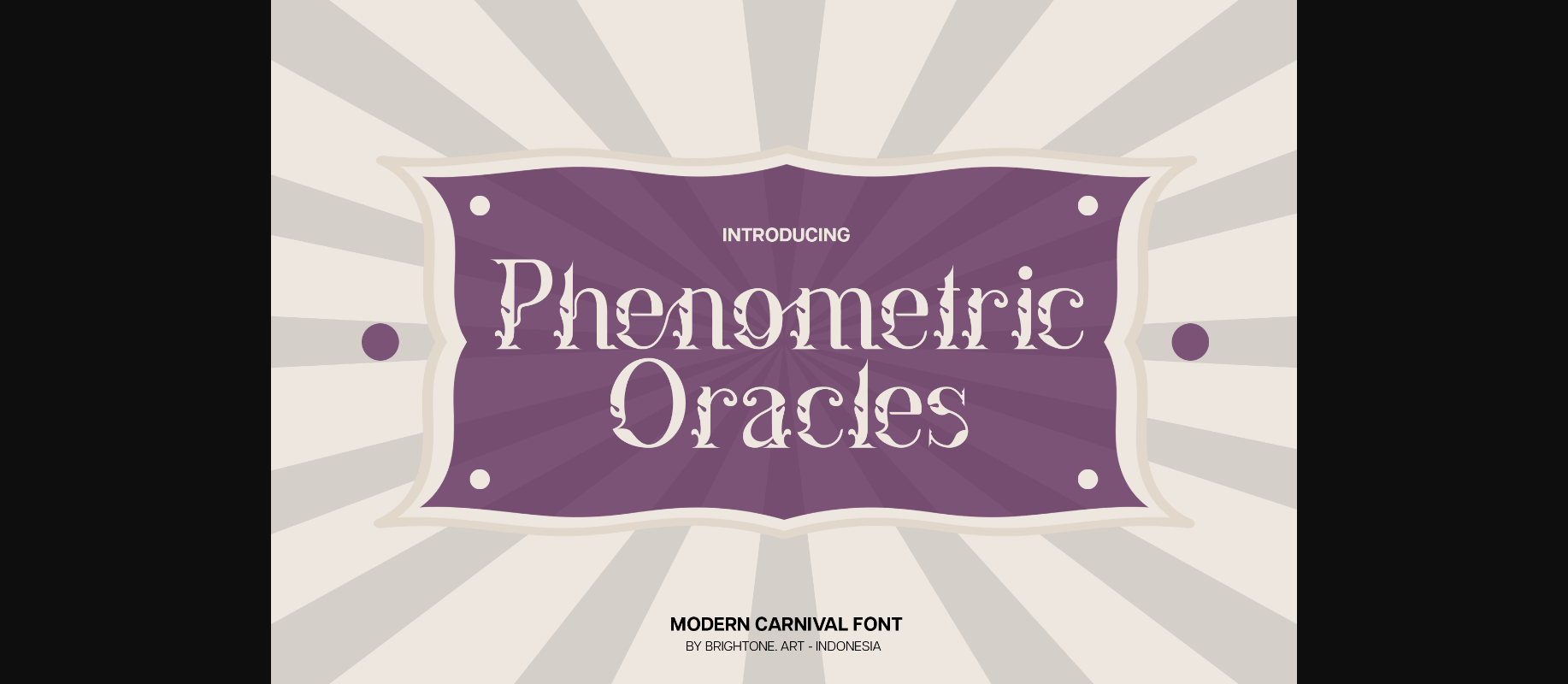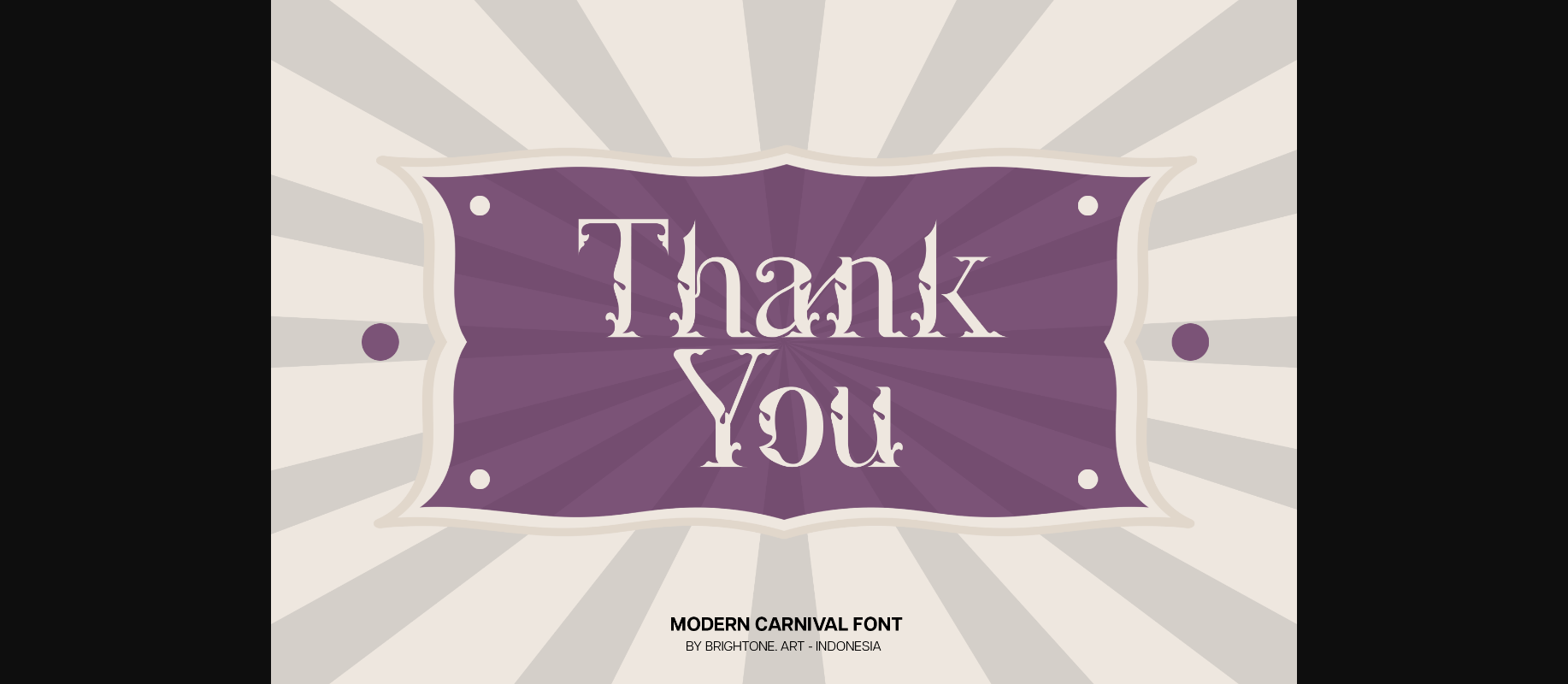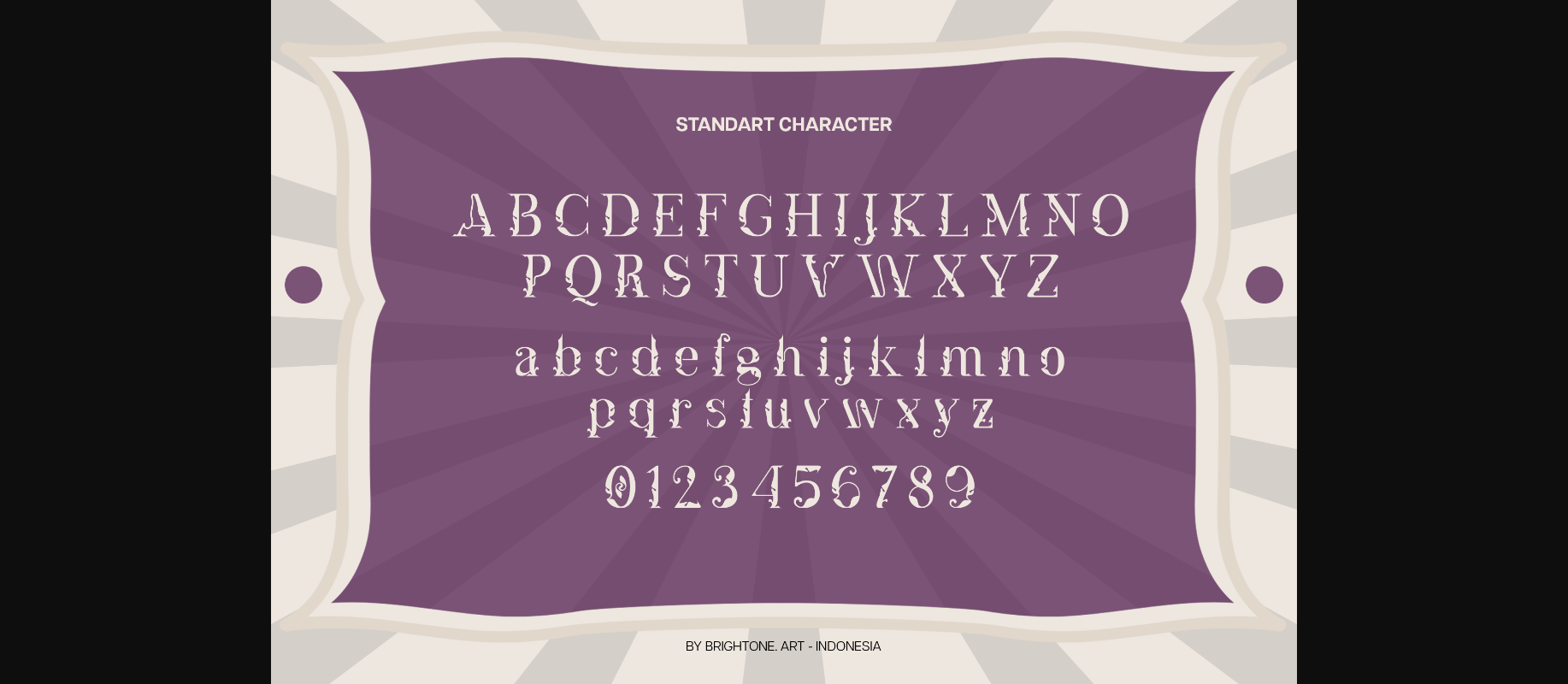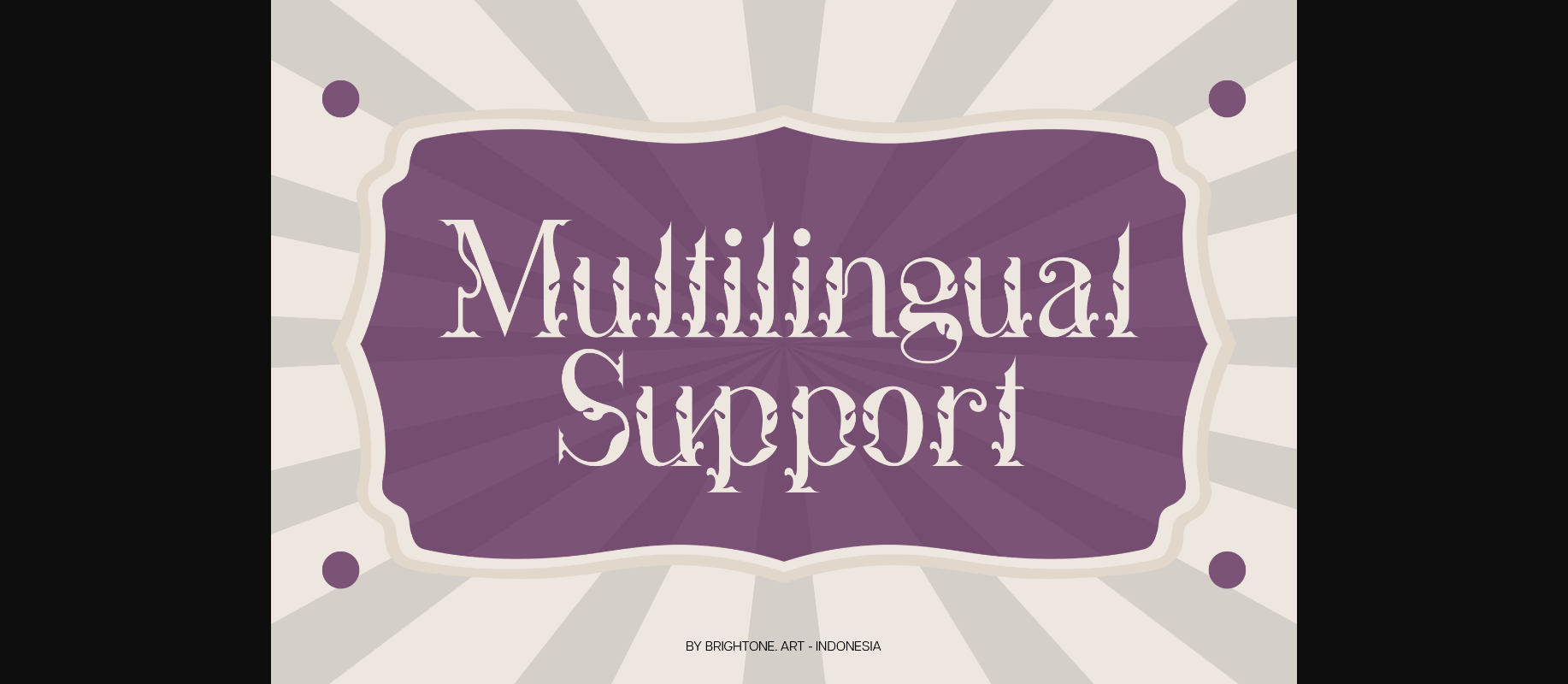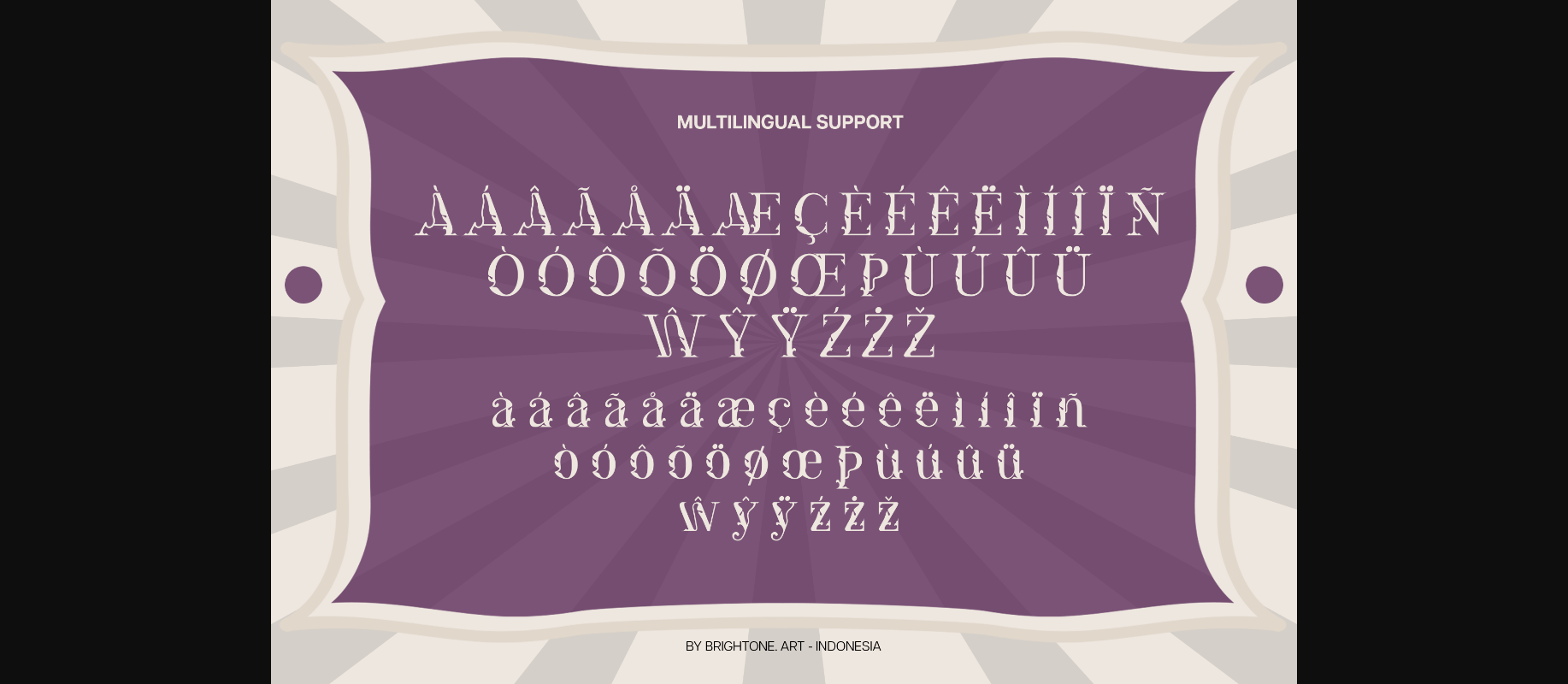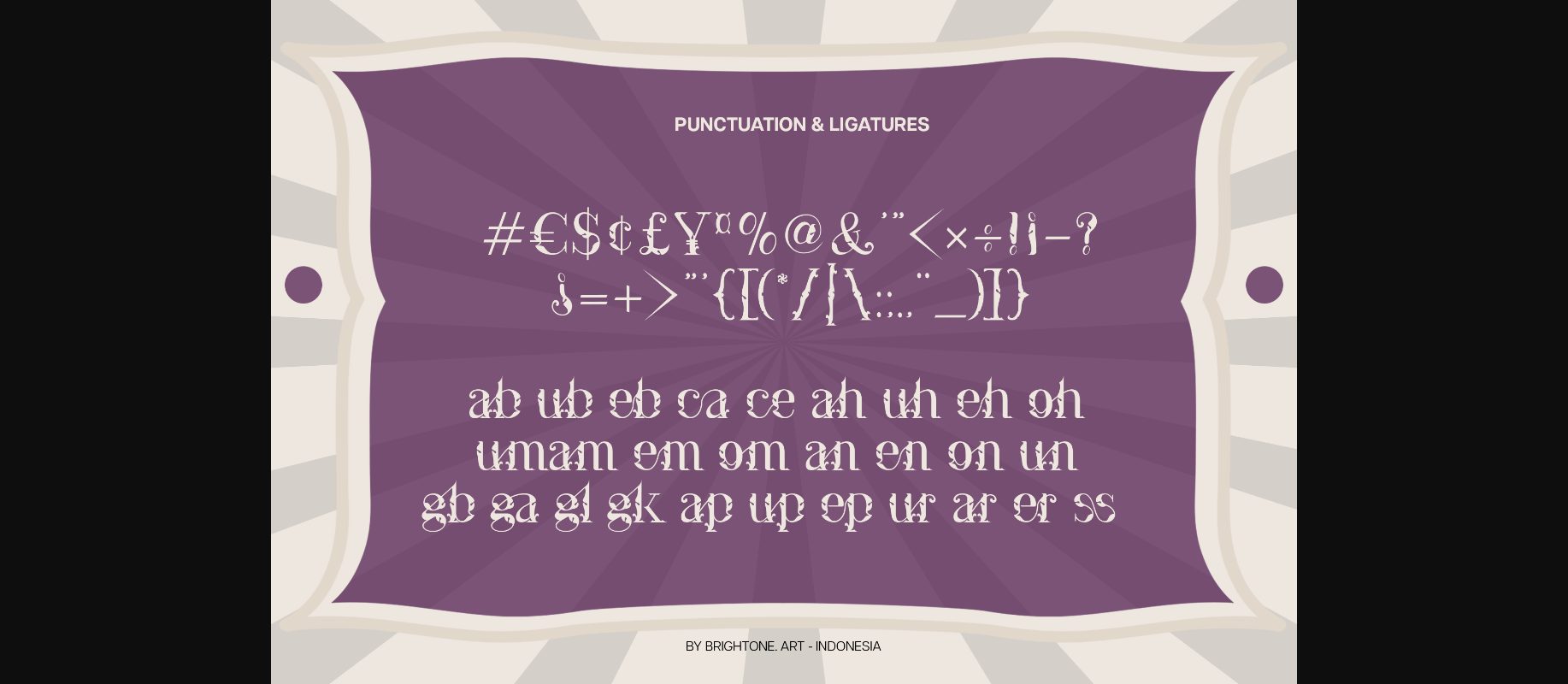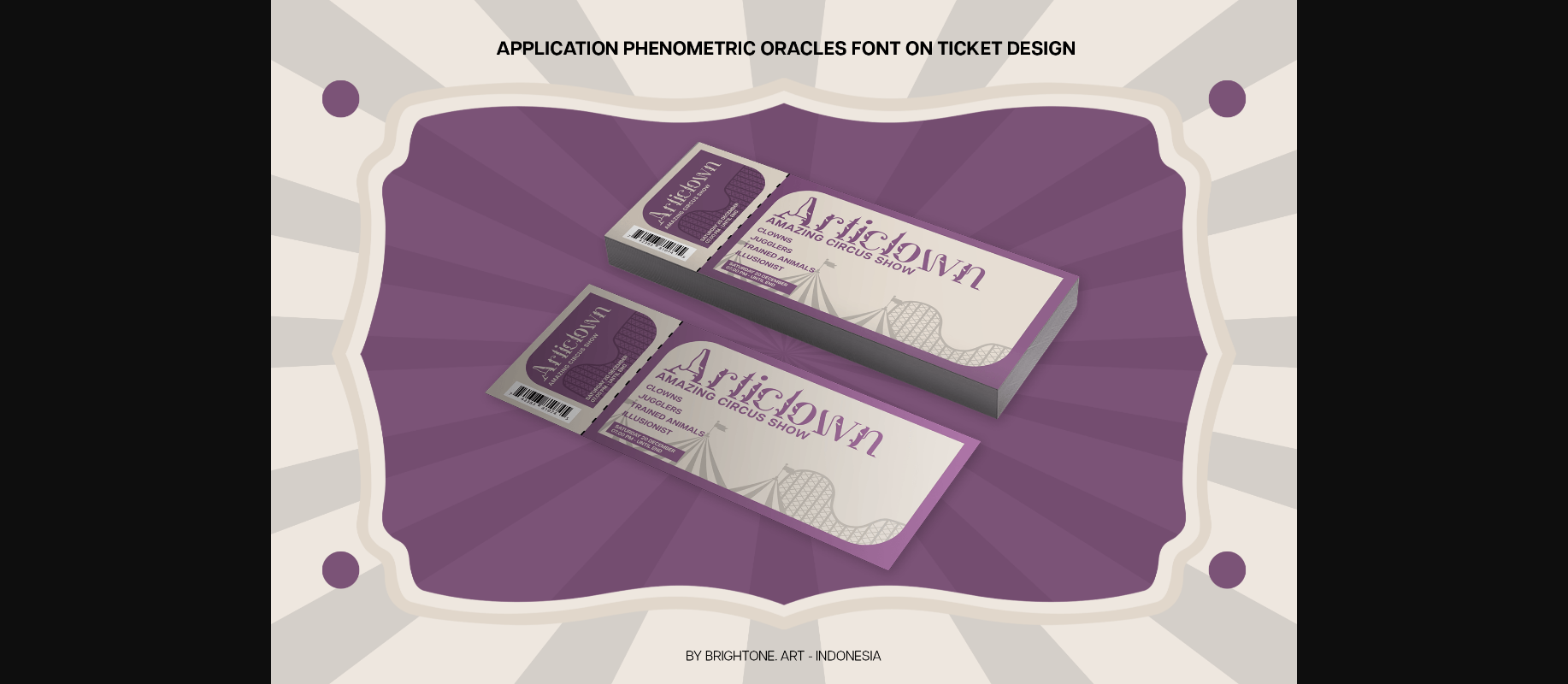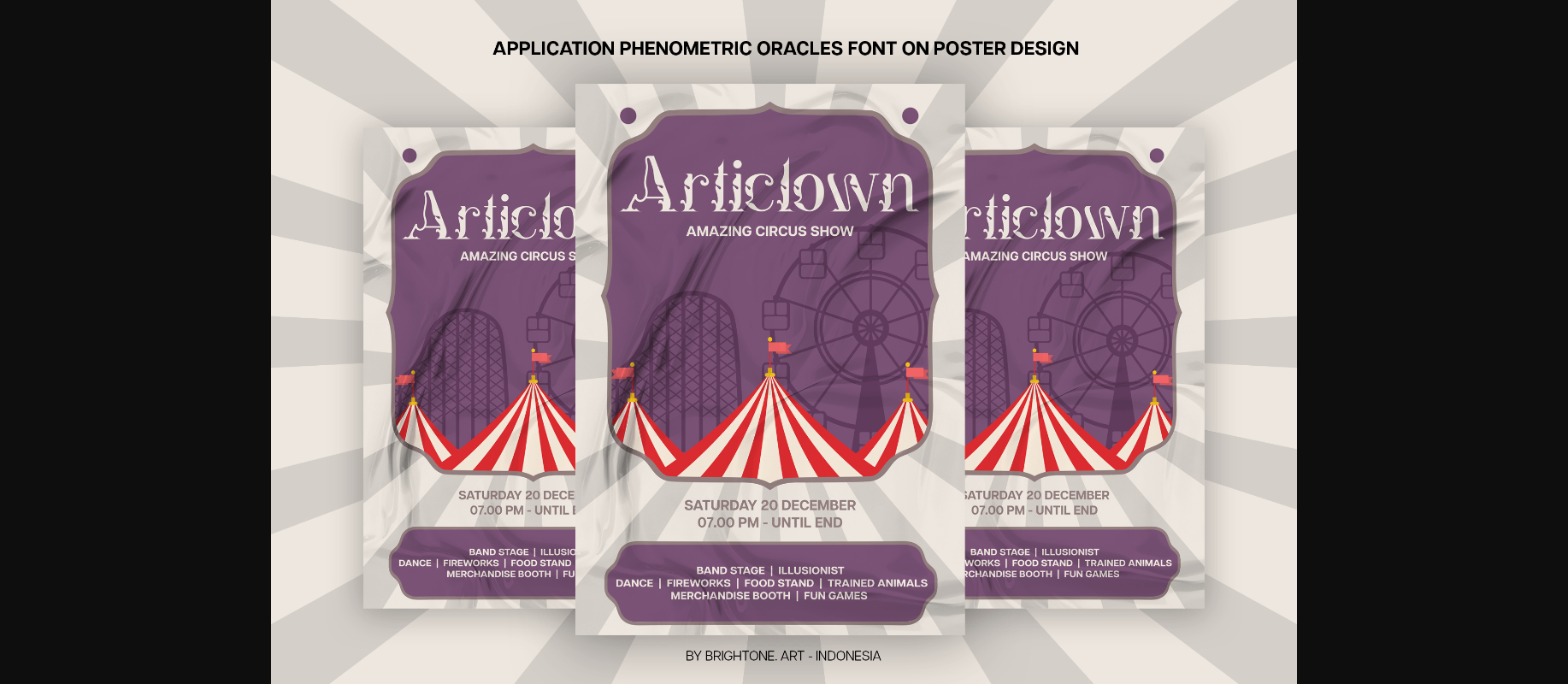
About Phenometric Oracles Font
Phenometric Oracles is classic serif font with decorative style and unique touch.
Phenometric Oracles font is suitable to use for all purpose for your logo lettering, logo, label, packaging, sticker, branding and many more.